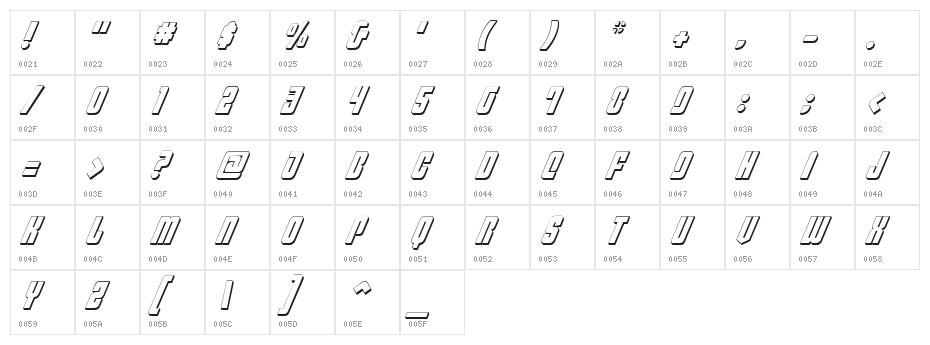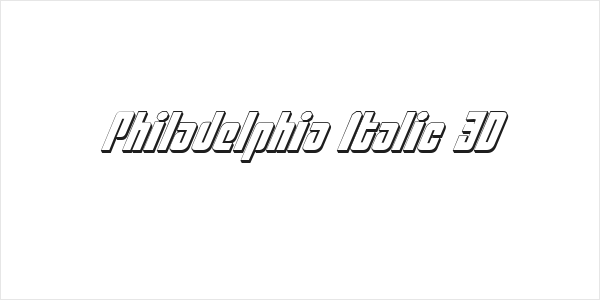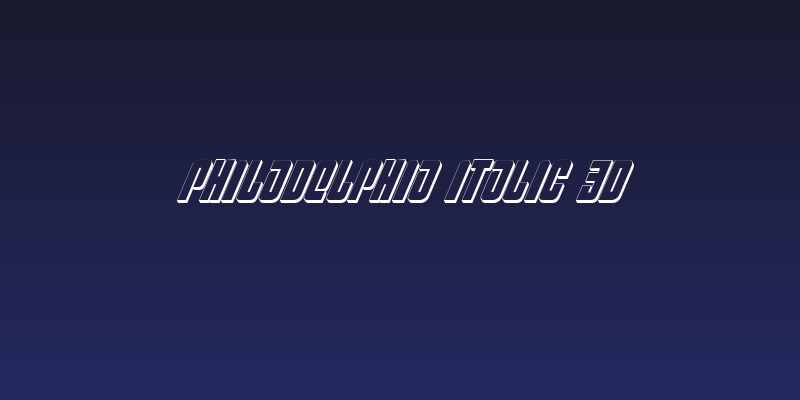
Philadelphia Italic 3D Font
Philadelphia Italic 3D Description
This font features a bold, italicized style with a distinct 3D effect, giving each character a sense of depth and dimension. The uppercase and lowercase letters are designed with sharp angles and clean lines, creating a futuristic and dynamic appearance. The numbers and special characters maintain this cohesive style, ensuring consistency across all elements. The font's italic slant adds a sense of motion, making it ideal for projects that require a modern and energetic look. The 3D effect is achieved through a clever use of shading and outlines, enhancing the overall visual impact.
| Proposed Projects | Ideal for branding, posters, video game graphics, and any project needing a modern, energetic style. |